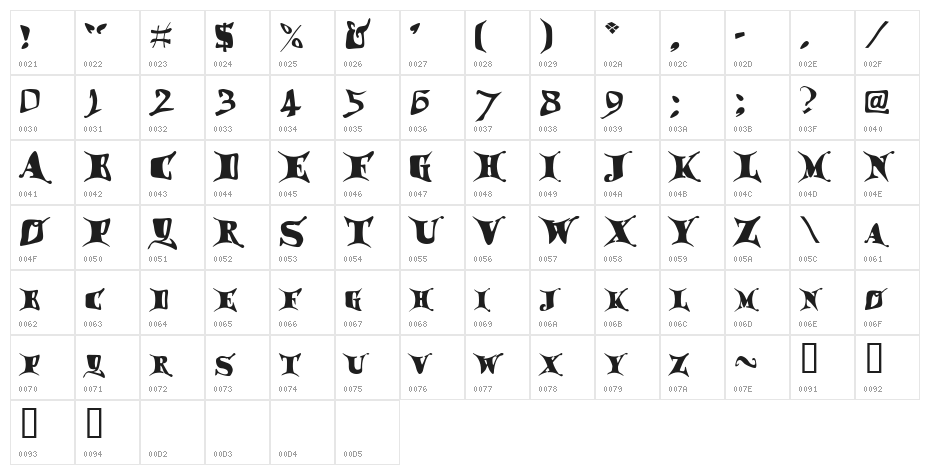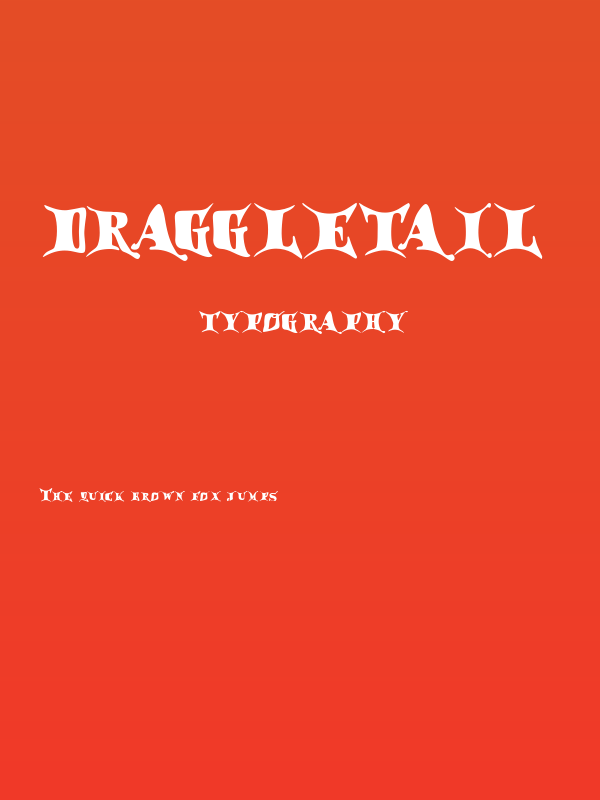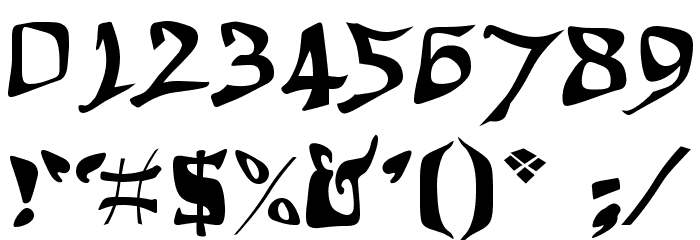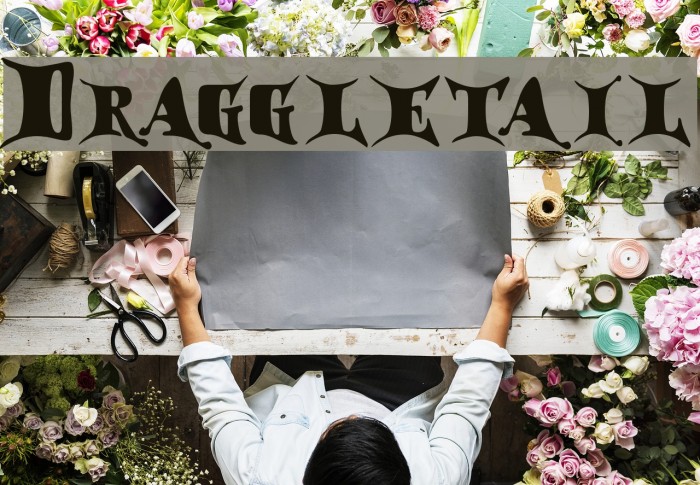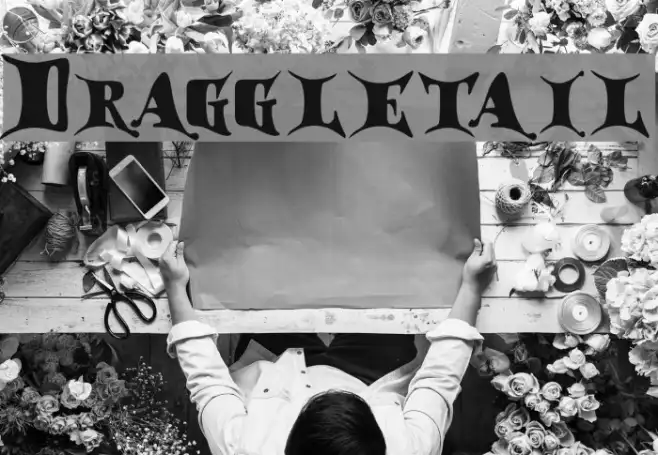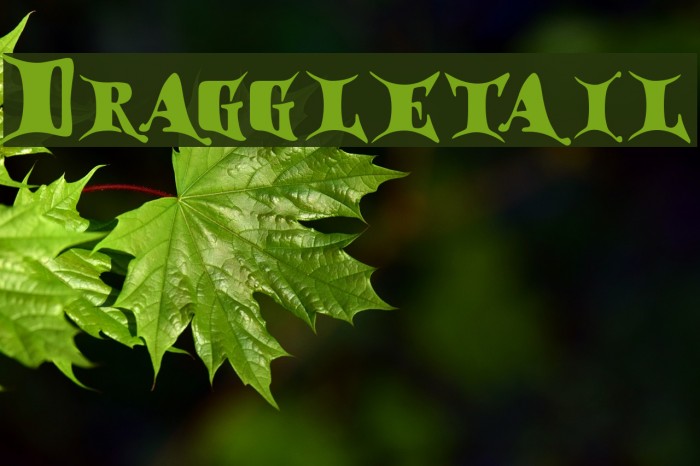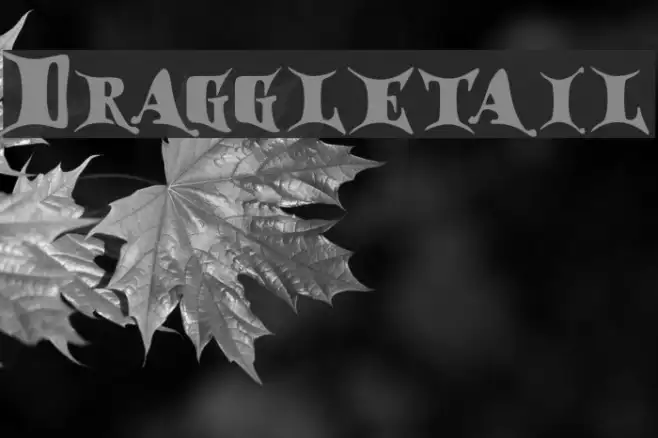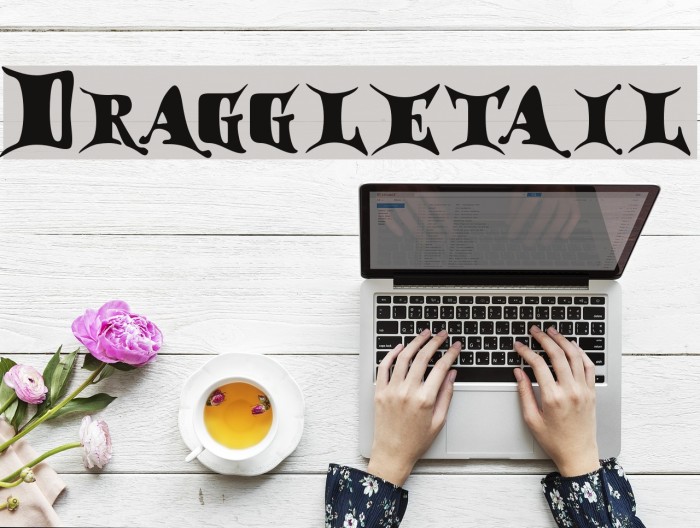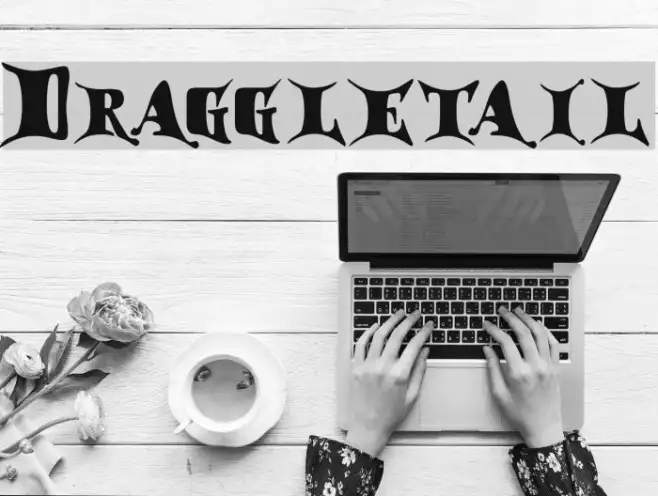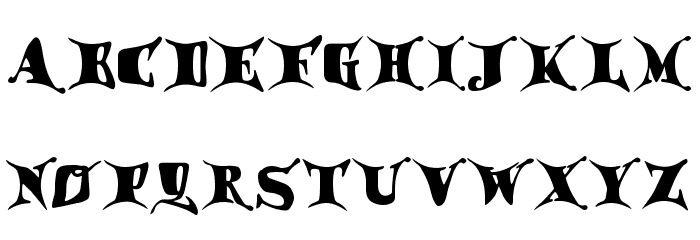
Draggletail Font
Draggletail Description
This font features a bold and dramatic style with sharp, angular edges and a gothic influence. The characters are highly stylized, with exaggerated serifs and a medieval flair that evokes a sense of mystery and intrigue. The uppercase and lowercase letters maintain a consistent design, with a strong emphasis on vertical lines and pointed terminals. The numbers and special characters follow the same aesthetic, providing a cohesive look across all glyphs. This font is ideal for projects that require a striking and memorable visual impact.
| Overall Style | Gothic, Decorative |
| Proposed Projects | Perfect for album covers, fantasy book titles, movie posters, and branding for edgy or alternative products. |